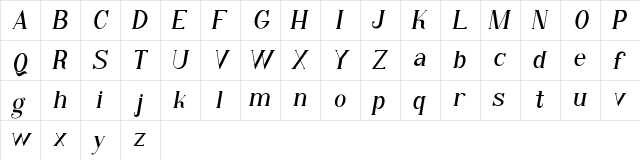
Qiba Serif Italic FREE Italic
Design Context for Qiba Serif Italic FREE Typeface
Qiba Serif Italic FREE brings classic typographic sensibility to the table — its serifs and measured letterforms reflect centuries of print heritage. Its italic angle brings a sense of urgency and motion to the letterforms.
Pro Tip: Set Qiba Serif Italic FREE with slightly loose tracking in headlines to let each letterform's detail read clearly at display sizes.